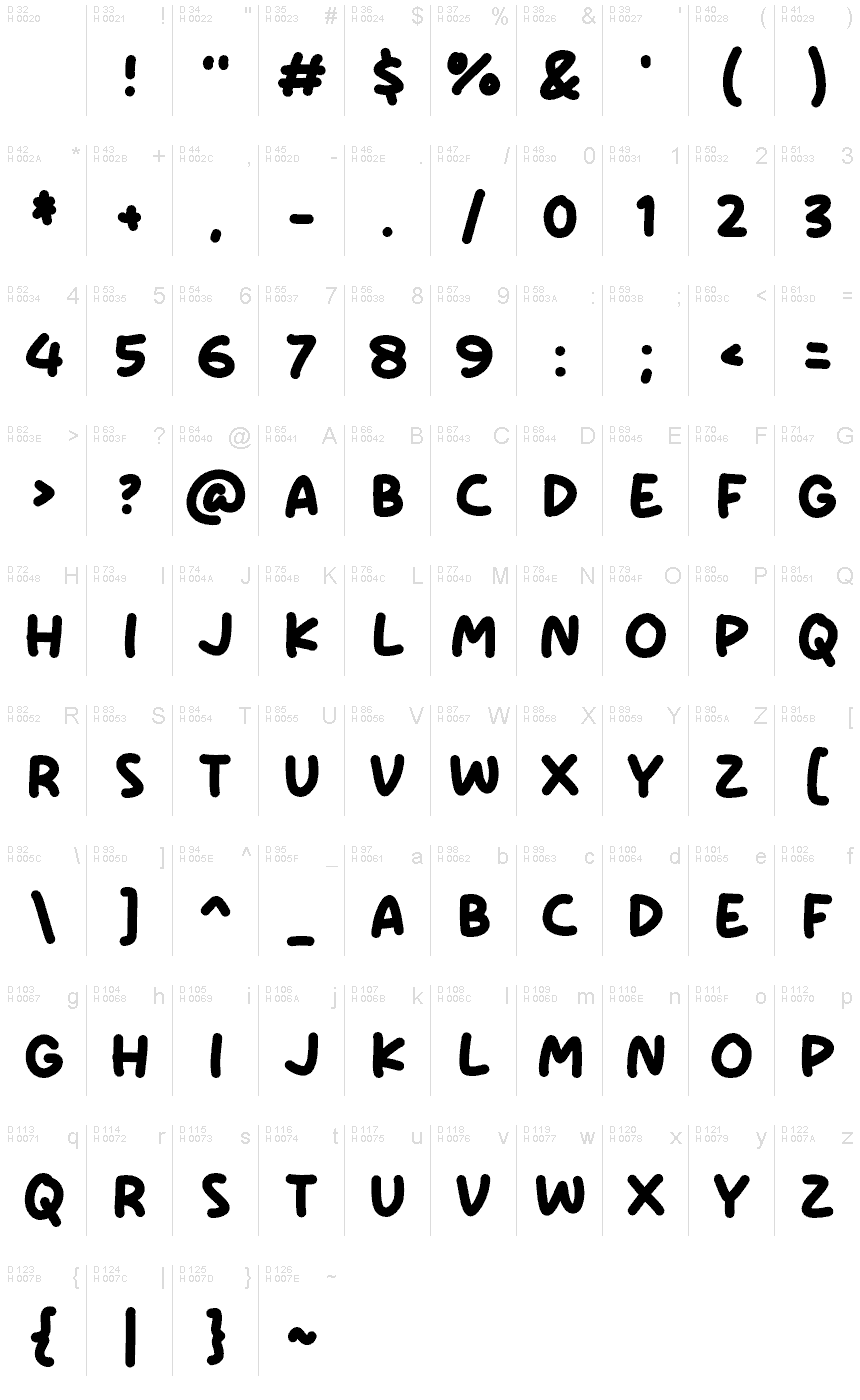
Inter Mush
Inter Mush font by Origin Type sparkles with its approachable charm and contemporary relevance. It’s bubbly, friendly, and casual in appearance, created to instantly give your designs a pleasant presence. This handwritten free font will never let you down with its professional quality no matter where you use it.